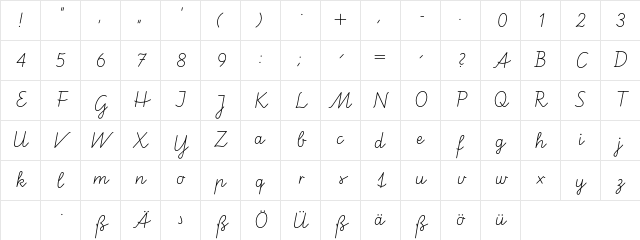
Schulschrift A
Style: A
Design Context for Schulschrift
Schulschrift is a composed and adaptable typeface that performs quietly and consistently across a wide range of design contexts.